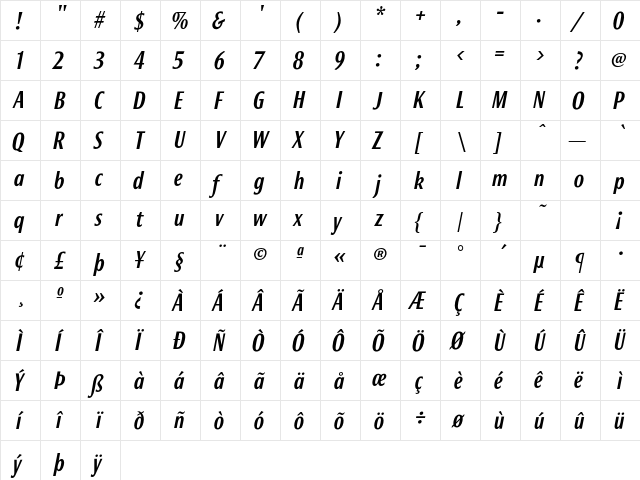
Bureau Roxy FB Medium Italic
Design Context for Bureau Roxy FB Medium Typeface
Bureau Roxy FB Medium takes a measured approach to typography — its balanced proportions and neutral character make it a reliable workhorse for both digital and print work. The slanted form adds forward momentum and visual energy.
Pro Tip: Use Bureau Roxy FB Medium for emphasis, pull quotes, and subheadings where its slanted energy can add rhythm to the layout.